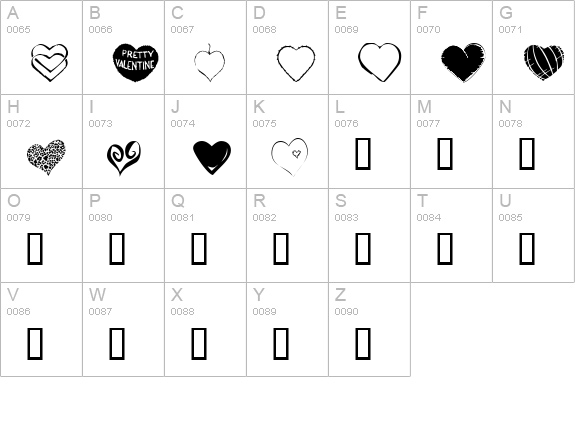
Introducing KR Heartfelt font, a charming and elegant typeface that exudes warmth and sincerity. With its delicate curves and graceful letterforms, this font is perfect for adding a touch of sentimentality to your designs. Whether you're crafting invitations, greeting cards, or heartfelt messages, KR Heartfelt font will convey your emotions with style. Best of all, KR Heartfelt font is completely free to download at FontsMarket.com. So go ahead and infuse your projects with a heartfelt touch, courtesy of this beautiful and expressive typeface. Download it today and let your creativity shine!